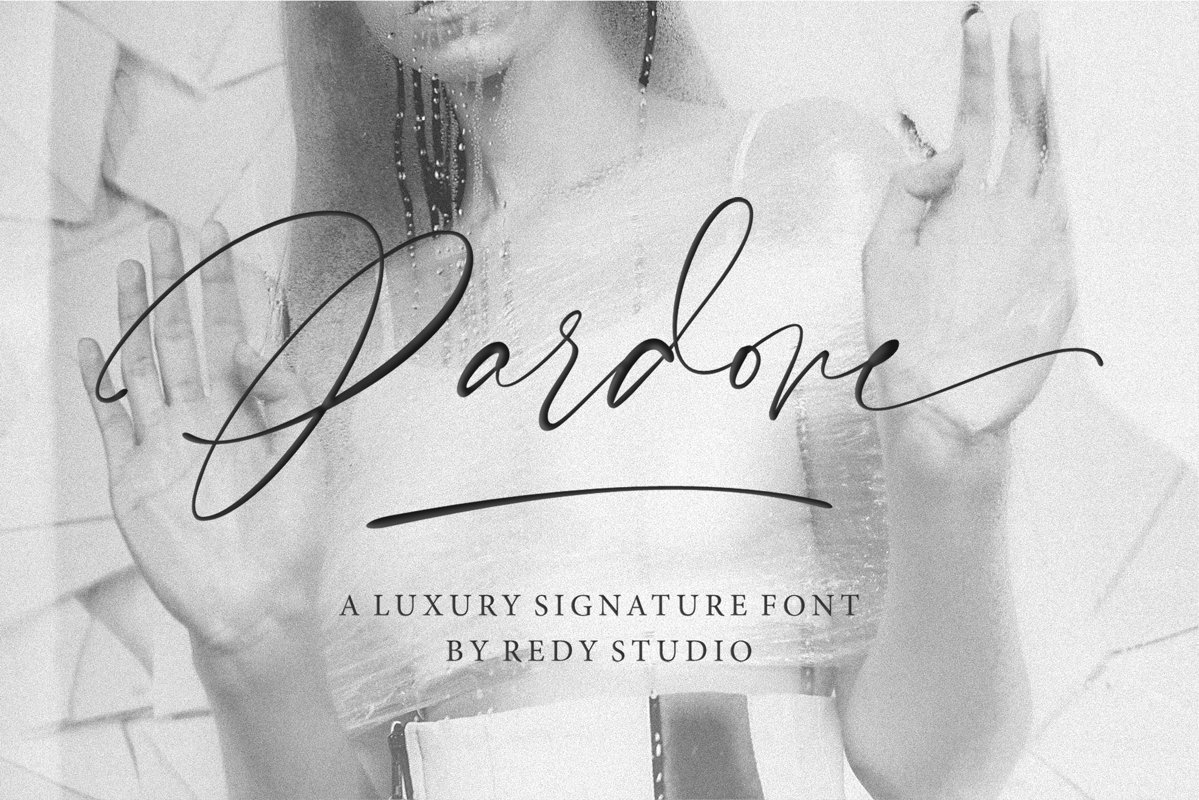
Pardone | Luxury Signature Font
Pardone
Introducing Pardone is a Luxury signature font, every single letters have been carefully crafted to make your text looks natural, this typeface is designed to look perfect fit for signature logos.Pardone includes full set of gorgeous uppercase and lowercase letters, numerals, a large range of punctuation, 68 ligatures, alternates, lowercase ending swsh, swsh and multilingual symbols.Pardone features :
• 68 Gorgeous ligatures
• lowercase alternates
• lowercase ending swashes
• Accented characters